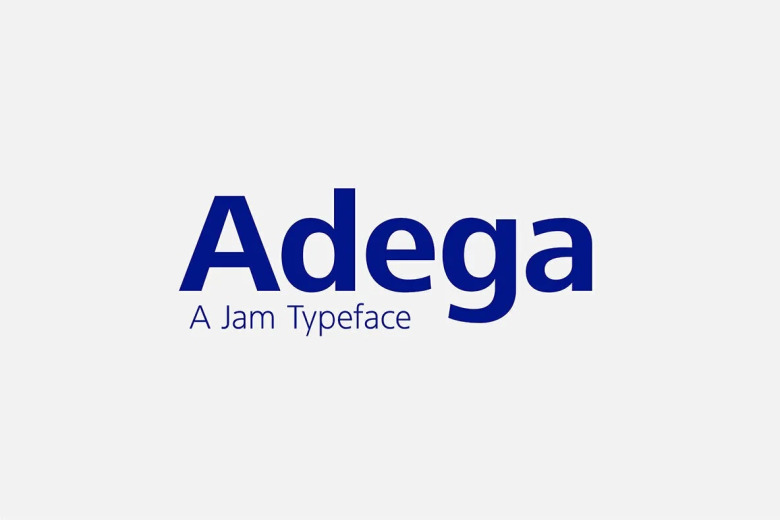
Jam Adega Font
Jam Adega Font is an adeptly designed sans-serif typeface suited for both distant viewing and compact settings due to its highly legible nature. At a glance, Jam Adega proves itself remarkably readable, whether employed in lengthy passages of minute text or expanses of directional signs.
With clarity persisting across an array of applications and font sizes, this typeface ensures easy comprehension amidst large volumes of small print quite similarly to how it facilitates rapid readability in open displays.
Jam Adega Sans Serif Font Family